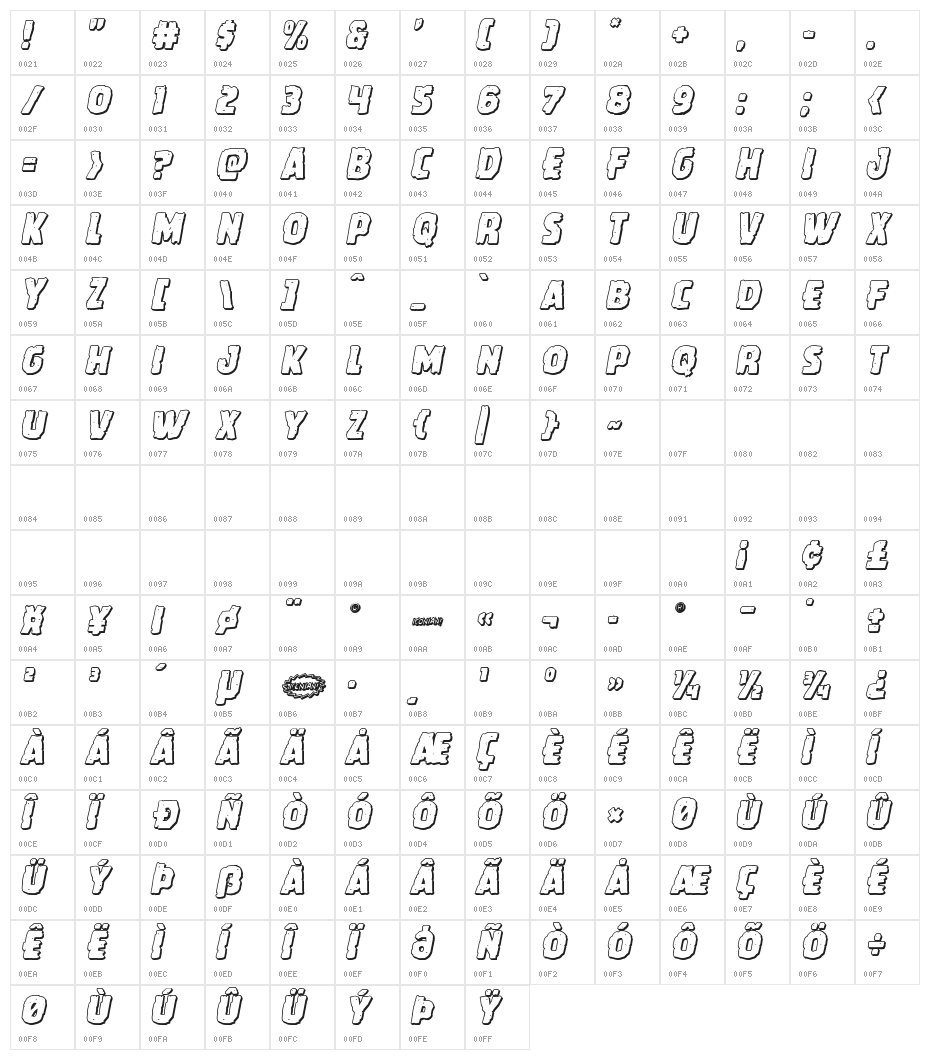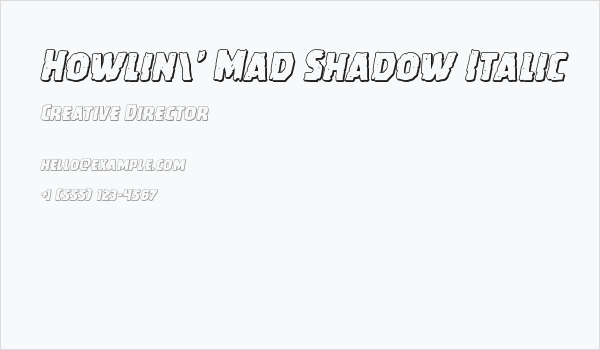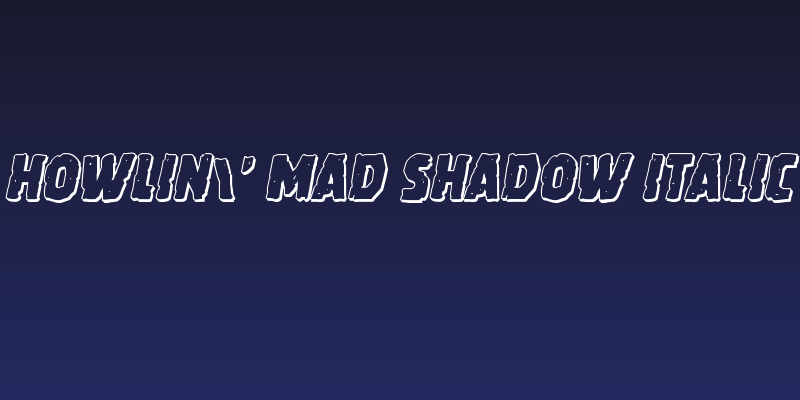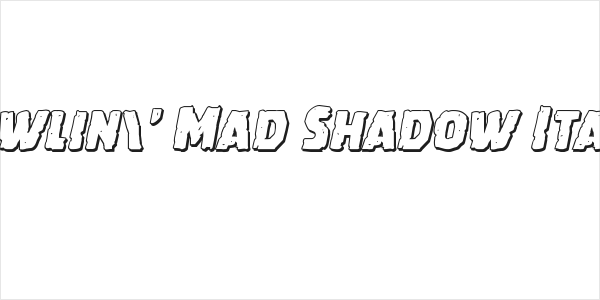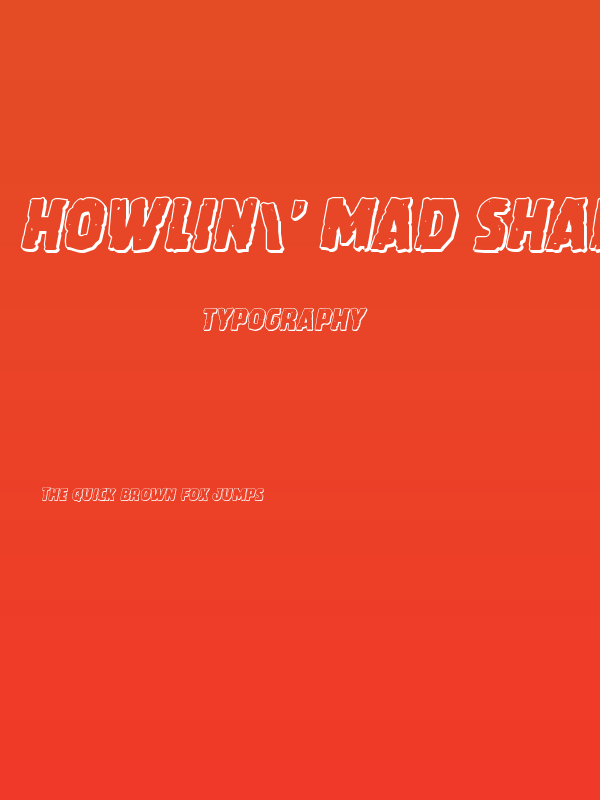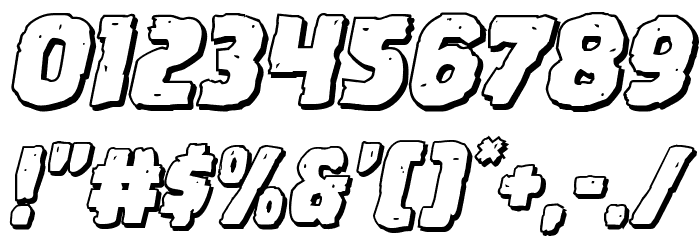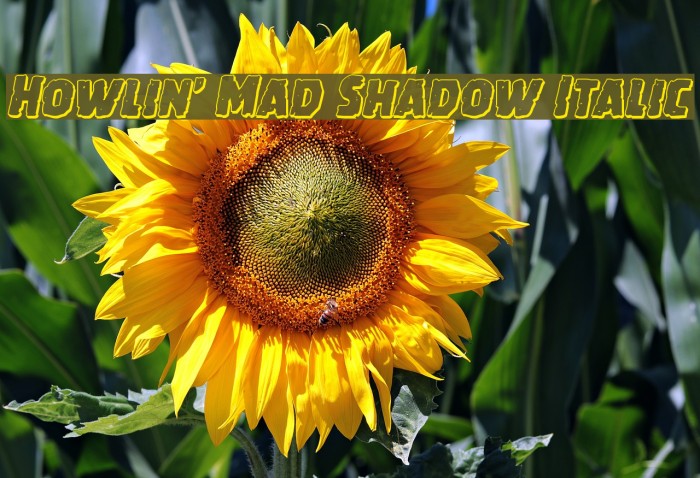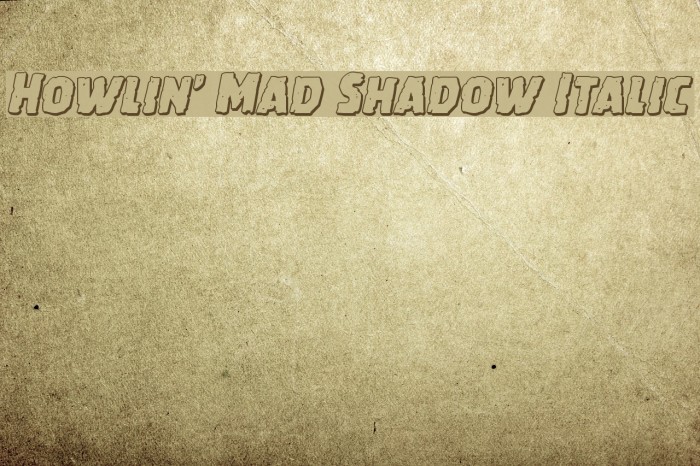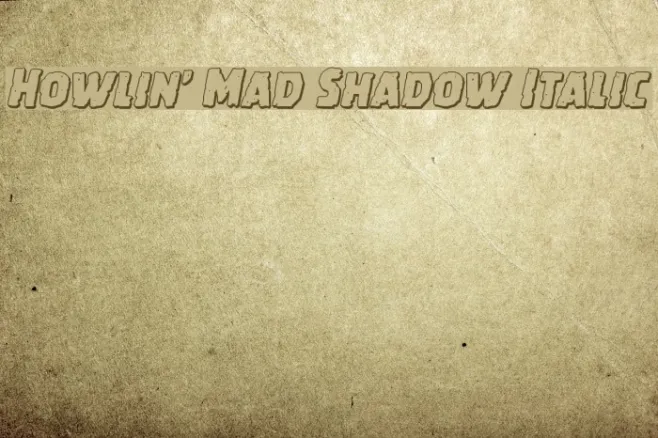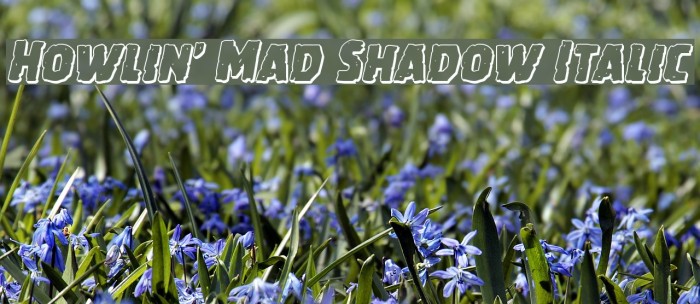
Howlin' Mad Shadow Italic Font
Howlin' Mad Shadow Italic Description
This font features a bold and playful design with a shadow effect that adds depth and dimension to each character. The letters are slightly italicized, giving them a dynamic and energetic appearance. The edges are rough and irregular, contributing to a hand-drawn, informal style. The font is highly legible, with distinct and well-defined characters that make it suitable for attention-grabbing headlines and creative projects. The numbers and special characters maintain the same playful and bold aesthetic, ensuring consistency across all elements.
| Overall Style | Playful, Dynamic, Informal |
| Proposed Projects | Ideal for comic books, children's book covers, posters, and playful branding materials. |